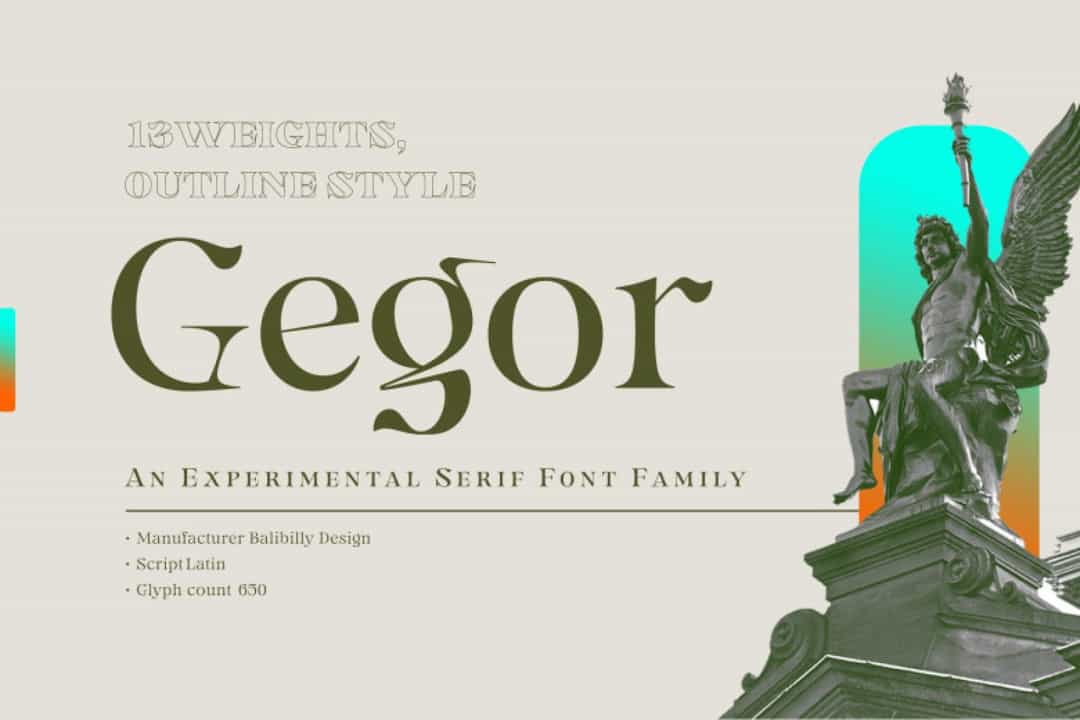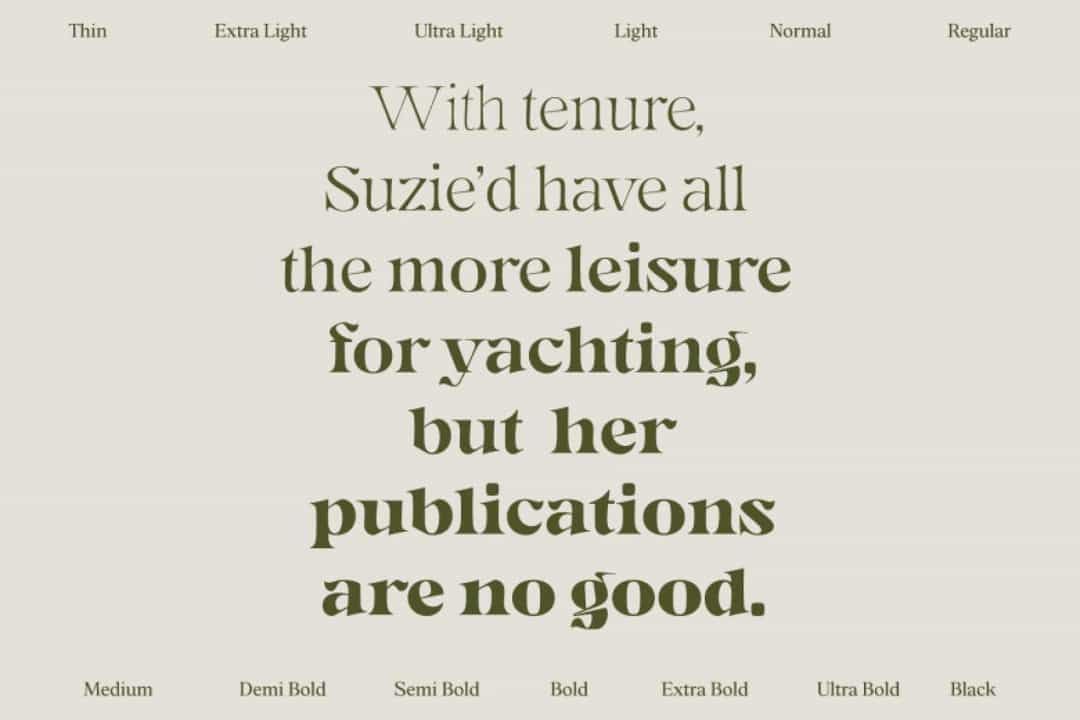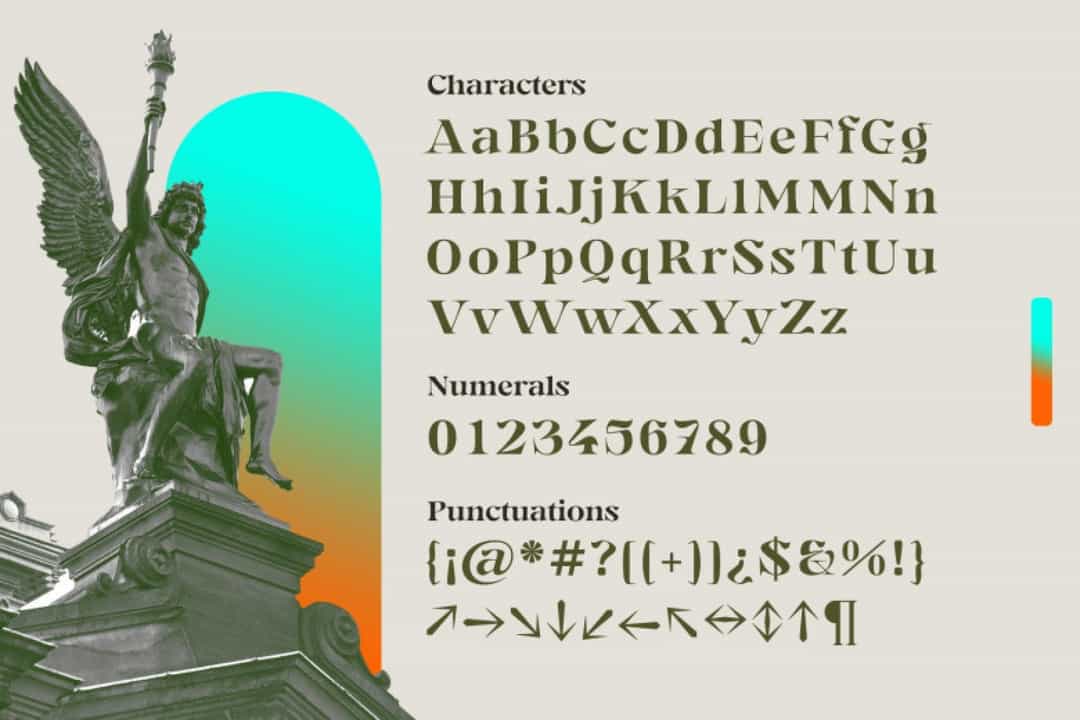
Gegor Font, created by BalibillyDesign and featuring a distinct retro-modern style. The font’s characters were drawn from”r “r”, just as Gegor was born and developed alongside her.